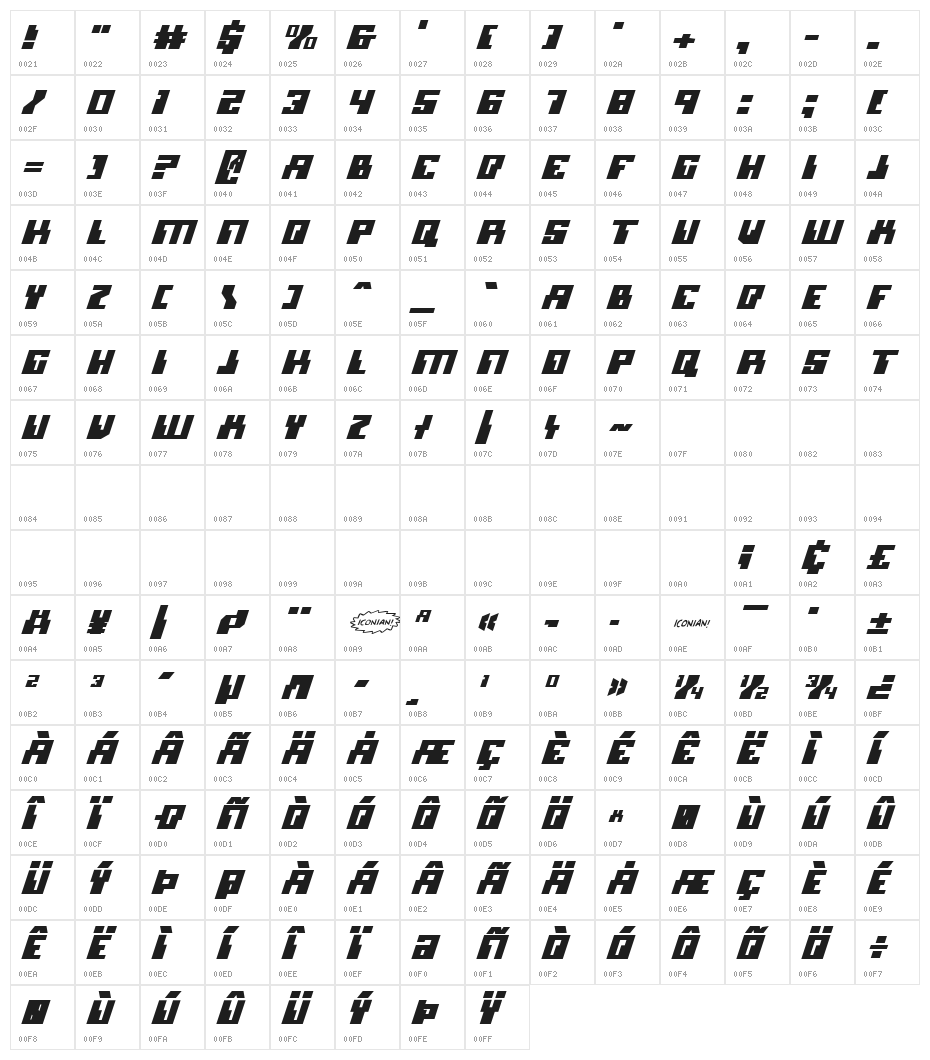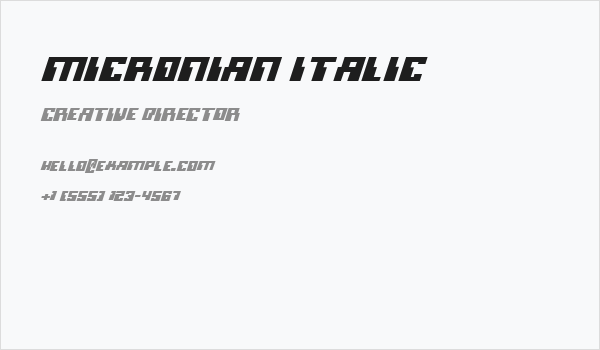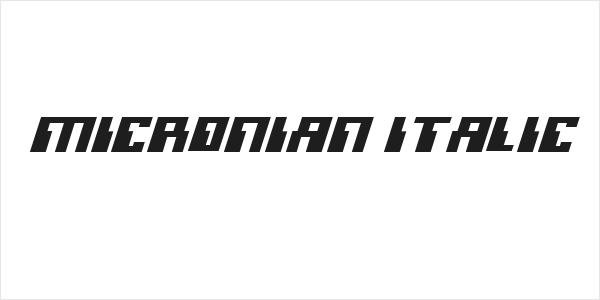
Micronian Italic Font
Micronian Italic Description
This font features a bold, angular design with a futuristic and dynamic appearance. The characters are sharply cut with a distinct slant, giving an italicized effect that enhances its modern aesthetic. The uppercase and lowercase letters maintain a consistent style, with geometric shapes and strong lines that convey a sense of speed and motion. Numbers and special characters are equally bold and angular, ensuring uniformity across all elements. This font's unique style makes it stand out, ideal for projects that require a striking and contemporary look.
| Proposed Projects | Ideal for sci-fi themed projects, video game titles, tech branding, and dynamic posters. |